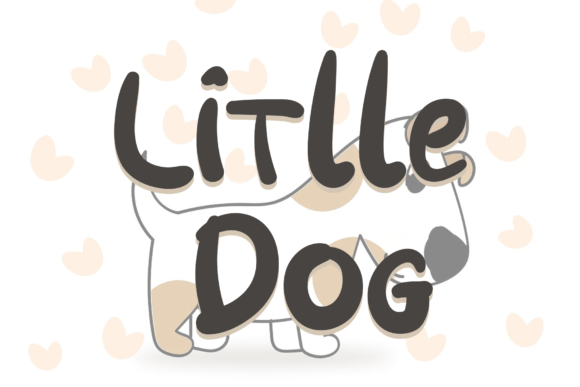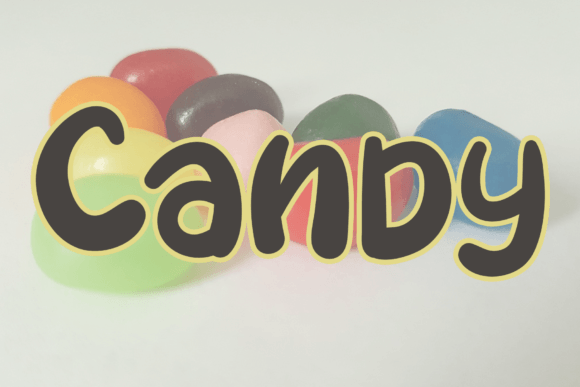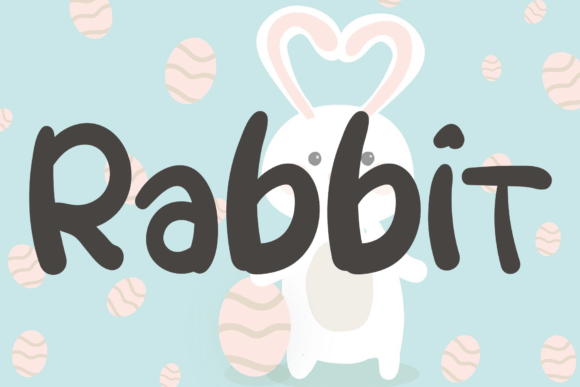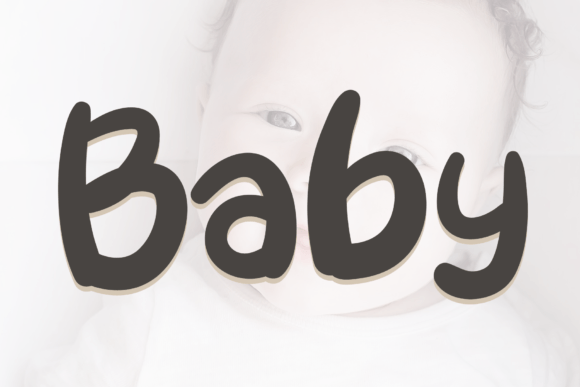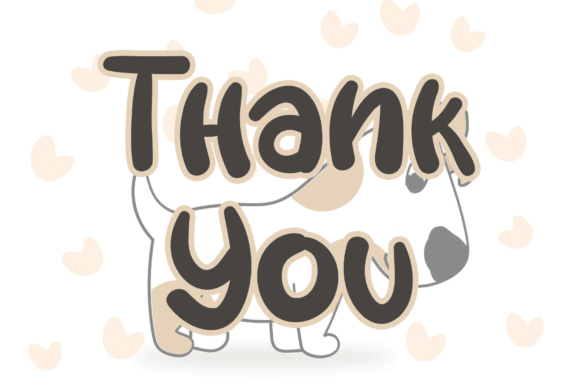
Introducing Animals Font: Elevate Your Designs with Timeless Elegance
In the world of typography, fonts play a crucial role in conveying the tone and personality of a design. For designers and crafters seeking to add a touch of sophistication and class to their projects, Animals Font is an exceptional choice. This trendy handwritten font boasts a contemporary atmosphere and impeccable form, drawing inspiration from timeless classic calligraphy.
The Essence of Animals Font
Animals Font is a beautifully crafted typeface that exudes elegance and refinement. Its unique, handwritten style is perfect for designers who want to create stunning visual content that stands out from the crowd. The font’s classic calligraphy inspiration ensures that it remains versatile and adaptable, suitable for a wide range of design applications.
Key Features of Animals Font
- Trendy and Contemporary: Animals Font features a modern, handwritten style that adds a fresh touch to any design.
- Timeless Classic Inspiration: Drawing from classic calligraphy, this font brings a sense of tradition and sophistication to your projects.
- Impeccable Form: Each letter is carefully crafted to ensure perfect legibility and aesthetic appeal.
- Versatile: Animals Font can be used for various design projects, from branding and advertising to packaging and digital media.
Use Cases for Animals Font
The versatility of Animals Font makes it an excellent choice for a variety of design projects. Here are some use cases where this font truly shines:
- Branding and Logo Design: Create a lasting impression with a unique and elegant logo that reflects your brand’s personality.
- Advertising and Marketing Materials: Use Animals Font to add a touch of sophistication to your ads, brochures, and promotional materials.
- Packaging Design: Elevate your product packaging with a beautiful, handwritten font that stands out on store shelves.
- Digital Media: From social media graphics to website headers, Animals Font is perfect for creating engaging digital content.
Tips for Using Animals Font Effectively
To get the most out of Animals Font, consider the following tips:
- Pair with Complementary Fonts: Combine Animals Font with clean, sans-serif fonts to create visual contrast and hierarchy.
- Experiment with Colors: Try different color schemes to find the perfect match for your design and brand.
- Pay Attention to Spacing: Ensure that your text is easy to read by adjusting letter spacing and line height.
Animals Font is a stunning, handwritten typeface that brings elegance and class to any design project. Its timeless classic inspiration, impeccable form, and versatility make it an excellent choice for designers and crafters seeking to create sophisticated visual content. Whether you’re working on branding, advertising, packaging, or digital media, Animals Font is sure to elevate your designs and leave a lasting impression.